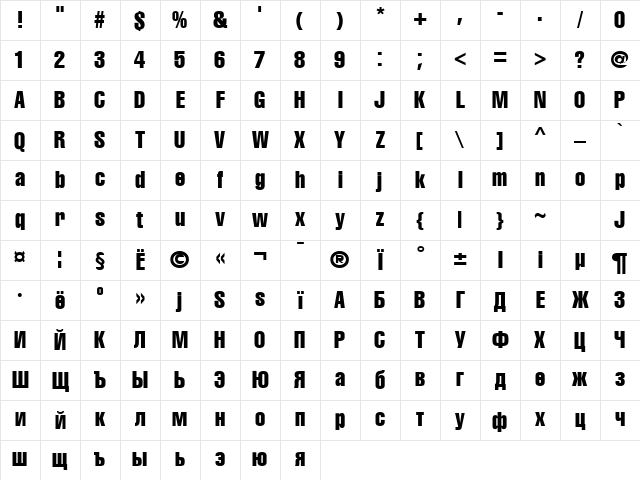
Complete A1012HelvetikaCmprs TYGRA Compress glyph index. Displaying only characters natively supported by A1012HelvetikaCmprs TYGRA Compress font.
A1012HelvetikaCmprs TYGRA is a composed and adaptable typeface that performs quietly and consistently across a wide range of design contexts.
Pro Tip: Use A1012HelvetikaCmprs TYGRA in both headline and body roles to test its range before committing to a single application.